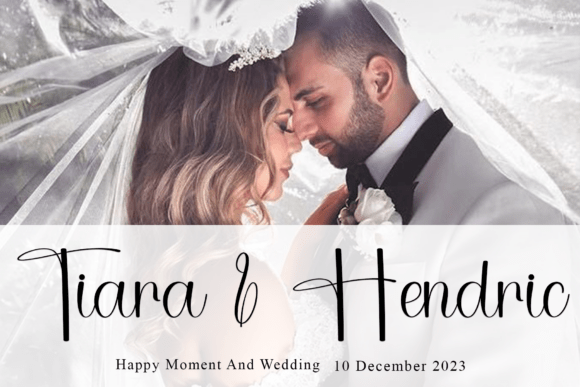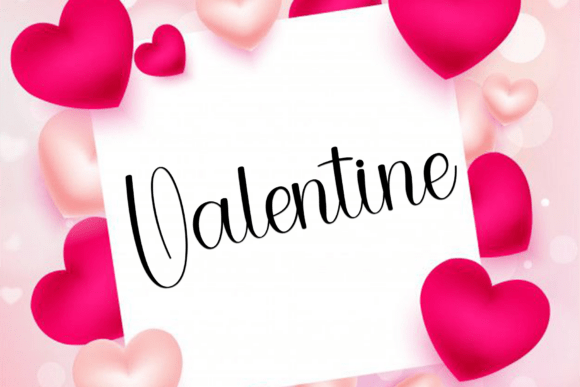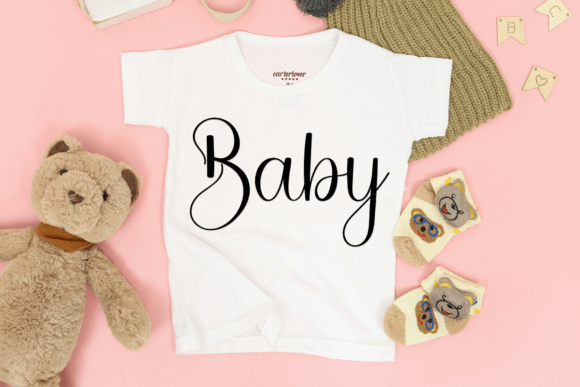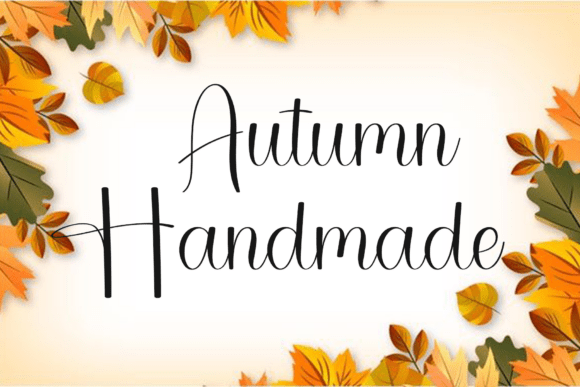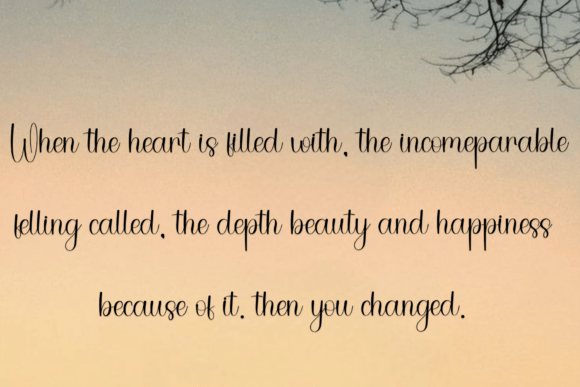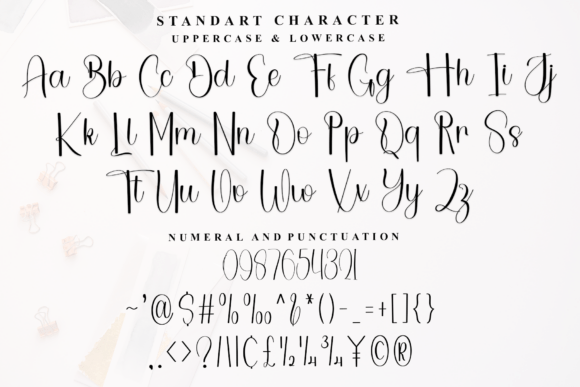
Introducing Beautiful Winterland Font: The Perfect Addition to Your Design Arsenal
Are you tired of using the same old fonts for your personal projects, invitations, and social media graphics? Look no further! Beautiful Winterland Font is here to bring a touch of warmth and friendliness to your designs. This casual and creative font is designed to make your work stand out with its round, playful strokes that create a relaxed and approachable feel.
The Charm of Beautiful Winterland Font
Beautiful Winterland Font boasts a charming, hand-drawn aesthetic that adds a fun and unique touch to any design. Its playful strokes and rounded edges make it perfect for creating eye-catching graphics that are sure to capture the attention of your audience. Whether you’re a designer, crafter, or simply a DIY enthusiast, this font is sure to become your new go-to.
What Makes Beautiful Winterland Font So Special?
So, what sets Beautiful Winterland Font apart from other fonts out there? Here are just a few reasons why this font is a must-have for any designer or crafter:
- Casual and Creative: Beautiful Winterland Font is designed to be casual and creative, making it perfect for personal projects, invitations, and social media graphics.
- Warm and Friendly: The font’s round, playful strokes create a warm and friendly feel that’s sure to make your designs stand out.
- Hand-Drawn Aesthetic: The font’s charming, hand-drawn aesthetic adds a fun and unique touch to any design.
Use Beautiful Winterland Font for a Variety of Projects
Beautiful Winterland Font is versatile and can be used for a variety of projects, including:
- Personal Projects: Use Beautiful Winterland Font to add a personal touch to your scrapbooking, journaling, or other craft projects.
- Invitations: Create eye-catching invitations for parties, weddings, or other special events with Beautiful Winterland Font.
- Social Media Graphics: Use Beautiful Winterland Font to create engaging social media graphics that are sure to capture the attention of your followers.
- Branding: Beautiful Winterland Font can also be used for branding purposes, such as creating logos, business cards, or letterheads.
Tips for Using Beautiful Winterland Font
Here are a few tips for using Beautiful Winterland Font:
- Experiment with Different Sizes: Beautiful Winterland Font looks great in a variety of sizes, so don’t be afraid to experiment to find the perfect size for your project.
- Pair with Other Fonts: Beautiful Winterland Font pairs well with other fonts, so try pairing it with a bold font for a fun and playful look.
- Use for Headings and Titles: Beautiful Winterland Font is perfect for headings and titles, so use it to add a touch of personality to your designs.
In conclusion, Beautiful Winterland Font is a must-have for any designer or crafter looking to add a touch of warmth and friendliness to their designs. With its charming, hand-drawn aesthetic and versatile uses, this font is sure to become a staple in your design arsenal. So why wait? Download Beautiful Winterland Font today and start creating eye-catching graphics that are sure to capture the attention of your audience!